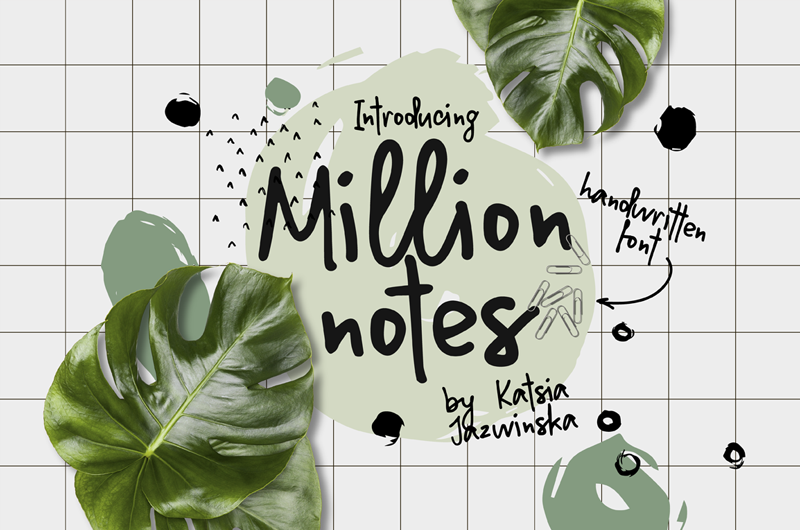
Preview and download Million Notes Font. Created by Katsia Jazwinska in Script Handwritten styles with Demo license.
This is the demo version which was made for you to try out the font in your projects. This means you can NOT use it for personal or commercial aims. --- DOWNLOAD FULL VERSION FOR PERSONAL AND COMMERCIAL USE: https://crmrkt.com/0pv7xl --- Introducing my new font Million Notes, which imitates quick hand writing. Perfect to demonstrate any notes, signs and reminders. The Full version includes upper and lowercase standard characters, punctuation, numerals and special glyphs, so the font can be used with most of the European languages. |